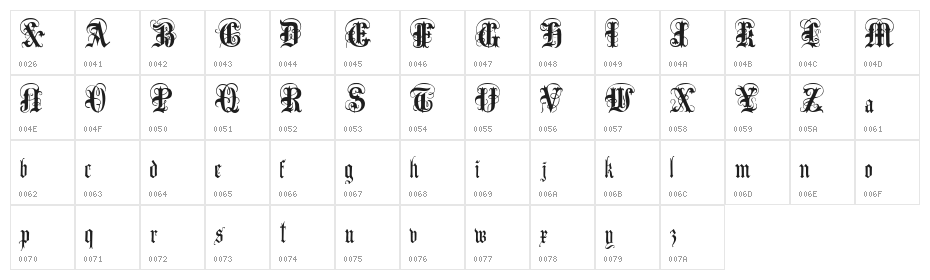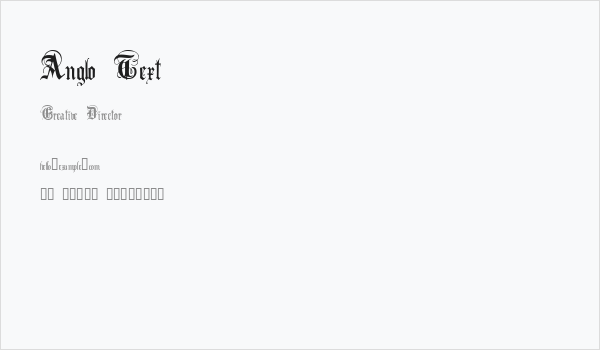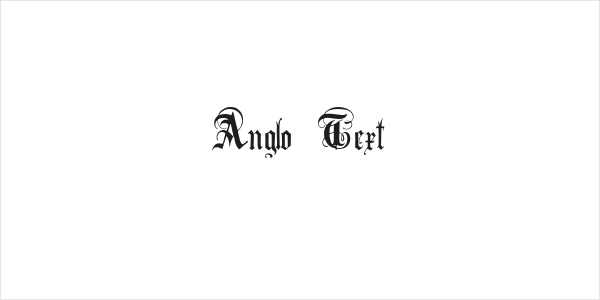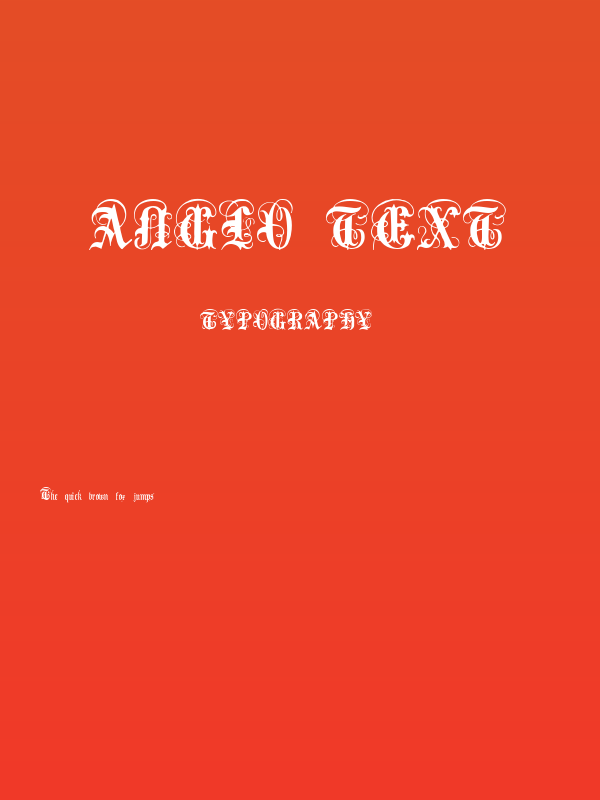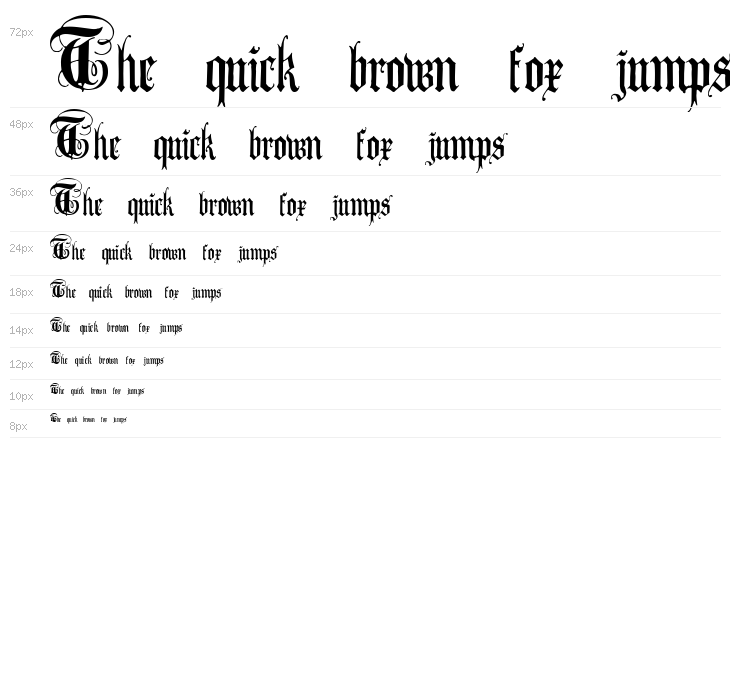
Anglo Text Font
Anglo Text Description
This font exhibits a classic blackletter style, characterized by its intricate and ornate design. The uppercase letters are highly decorative, featuring elaborate flourishes and sharp, angular strokes that give it a historical and gothic appearance. The lowercase letters maintain a similar aesthetic but with slightly less ornamentation, ensuring readability while preserving the overall style. The numerals and special characters are consistent with the blackletter theme, adding to the font's cohesive look. This font is ideal for projects that require a touch of medieval or vintage flair, such as invitations, certificates, or branding for historical-themed events.
| Overall Style | Vintage |
| Use Case | Headlines, Decorative text |
| Proposed Projects | Ideal for historical-themed invitations, certificates, branding, and decorative purposes. |